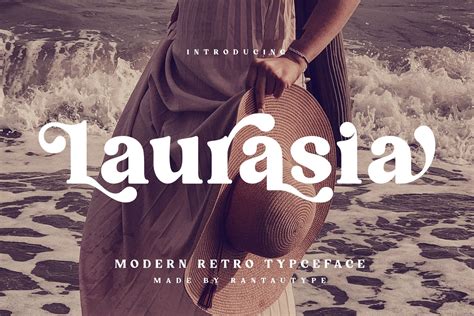
Laurasia Font: Discover Its Unique Style
Hey guys! Today, we’re diving deep into the fascinating world of Laurasia Font . If you’re a designer, a typophile, or just someone who appreciates a really cool typeface, you’re going to want to stick around. We’re going to explore what makes Laurasia Font so special, where it came from, and how you can best use it to make your projects pop. Get ready to unlock the secrets of this amazing font!
The Genesis of Laurasia Font
Let’s start at the beginning, shall we? The Laurasia Font isn’t just another pretty typeface; it has a story. Named after a supercontinent that existed millions of years ago, Laurasia evokes a sense of ancient wisdom and robust structure. This connection to a prehistoric landmass gives the font a unique character – it feels both timeless and modern. When designers create fonts, they often draw inspiration from history, nature, or abstract concepts, and Laurasia Font is a prime example of this. The designers behind Laurasia aimed to capture the essence of geological time, the slow, powerful shaping of continents, and translate that into a visual language. Think about the ruggedness of ancient landscapes, the strength in natural formations, and the beauty of enduring structures. That’s the vibe they were going for. It’s not a font that shouts for attention, but rather one that commands respect through its inherent quality and thoughtful design. The careful balance between sharp serifs and smooth curves suggests a deliberate hand, one that understands the nuances of legibility and aesthetic appeal. It’s the kind of font that whispers sophistication, making it ideal for projects that aim for a more profound and lasting impression.
Key Features That Make Laurasia Stand Out
So, what exactly sets Laurasia Font apart from the crowd? It’s all in the details, guys! One of the most striking features is its unique serif style. They’re not your typical sharp, pointy serifs; they have a slightly rounded, almost calligraphic feel. This gives the font a warm and inviting, yet still professional, appearance. Additionally, the letterforms themselves have a distinctive structure. Some characters might feature unexpected ligatures or subtle variations in stroke width that add a touch of personality without compromising readability. This attention to detail ensures that Laurasia Font doesn’t just look good; it feels good to read. The ascenders and descenders (the parts of letters that go above or below the main body) are well-proportioned, contributing to a harmonious rhythm when text is set in paragraphs. The x-height – the height of lowercase letters like ‘x’ – is also carefully considered, striking a balance that enhances legibility across different sizes. Whether you’re using it for headlines, body text, or even small captions, Laurasia Font maintains its integrity and charm. Another aspect worth noting is the range of weights and styles available. Often, a font family will include light, regular, bold, and perhaps italic versions. Laurasia Font, depending on the specific iteration, might offer even more, allowing for versatile typographic applications. This flexibility is a huge plus for designers who need to create a cohesive visual hierarchy within a single project. The kerning – the space between individual letter pairs – is also meticulously crafted, preventing awkward gaps or overlaps that can disrupt the flow of reading. It’s these subtle, often overlooked, elements that elevate a font from merely functional to truly exceptional.
Applications of Laurasia Font: Where to Use It
Now for the fun part: how can you actually use Laurasia Font ? The versatility of this font is one of its biggest strengths, making it suitable for a wide array of applications. For starters, it’s fantastic for branding and logo design. Its unique character makes a memorable impression, helping businesses establish a distinct identity. Imagine a high-end boutique, a bespoke furniture maker, or a craft brewery using Laurasia Font for their logo – it immediately conveys a sense of quality and thoughtfulness.
Branding and Logo Design
When it comes to branding and logo design , Laurasia Font truly shines. Why? Because it strikes that perfect balance between distinctiveness and professionalism. You want a logo font that’s instantly recognizable, something that sets you apart from the competition, but you also need it to be legible and convey trust. Laurasia Font delivers on both fronts. Its slightly unconventional serifs and unique letterforms give it personality, making it memorable. Think of it as the font equivalent of a well-tailored suit with a subtle, stylish accessory – it’s put-together, but with a hint of flair. For brands that want to project an image of heritage, craftsmanship, or understated luxury, Laurasia is a go-to. It feels established, like it has a story to tell, which is incredibly powerful for brand storytelling. Whether it’s etched into metal, printed on a business card, or displayed on a website, Laurasia Font has the gravitas to make a brand statement. It avoids being overly trendy, which means your logo will stand the test of time, avoiding the need for frequent redesigns just because the font went out of fashion. It’s the kind of font that makes people pause and take notice, not because it’s loud, but because it possesses a quiet confidence and an undeniable elegance. Consider a craft artisanal food company – the font can communicate the care and quality put into their products. Or perhaps a luxury real estate agency – it speaks of exclusivity and enduring value. The possibilities are vast, and the impact is consistently impressive. The key is understanding the brand’s core values and seeing how Laurasia Font’s inherent characteristics can amplify those messages. It’s about more than just aesthetics; it’s about strategic typographic communication.
Editorial and Publishing
In the realm of editorial and publishing , Laurasia Font is a gem for both headlines and body text. Its excellent readability, even in smaller sizes, makes it a dream for book designers, magazine editors, and anyone working on long-form content. Use it for the main title of a novel to evoke a sense of classic storytelling, or for feature articles in a magazine to lend an air of authority and sophistication.
Web Design and UI/UX
For web design and UI/UX , Laurasia Font offers a sophisticated touch. It can be used for website headings, navigation menus, or even call-to-action buttons to create a more refined user experience. Its legibility on screens ensures that your message is always clear and engaging. Imagine a travel blog or a personal portfolio site – Laurasia Font can add that extra layer of polish that makes visitors want to explore further. The subtle details of the font can also contribute to a brand’s online personality, making the digital experience feel more human and less generic. When users interact with a website, the typography plays a crucial role in setting the tone and conveying information efficiently. Laurasia Font, with its blend of classic structure and contemporary appeal, can enhance this interaction significantly. It’s not just about looking good; it’s about ensuring that the user journey is intuitive and pleasant. For instance, using Laurasia for headings can guide the user’s eye through the content, while a slightly different weight or style for subheadings can create a clear visual hierarchy. This makes complex information easier to digest and navigate. In e-commerce, clear and elegant typography can build trust and encourage conversions. A well-chosen font like Laurasia can make product descriptions more appealing and checkout processes feel more secure. Its readability across various devices and screen sizes is paramount, and Laurasia generally performs well in this regard, adapting gracefully to different resolutions. Furthermore, its unique character can help a brand stand out in a crowded digital space, making a lasting impression on visitors long after they’ve left the site. It’s a tool that designers can leverage to create not just functional websites, but truly memorable digital experiences. The aesthetic qualities of Laurasia Font can also evoke specific emotions or associations, aligning the user’s perception with the brand’s intended message. Whether aiming for a modern, minimalist feel or a more traditional, elegant aesthetic, Laurasia Font provides the flexibility to achieve these goals effectively, enhancing the overall user interface and user experience in a meaningful way.
Packaging and Print Design
Packaging and print design also benefit greatly from Laurasia Font . Think about wine labels, craft beer packaging, or even high-end stationery. Its elegant and sturdy nature makes it perfect for conveying a sense of quality and craftsmanship. It’s a font that feels substantial, making your product or printed material stand out on the shelf or in the mail.
Tips for Using Laurasia Font Effectively
To truly harness the power of Laurasia Font , here are a few pro tips, guys:
• Pairing is Key: While Laurasia Font is beautiful on its own, pairing it with a complementary sans-serif font can create dynamic contrast. Look for a sans-serif that has clean lines and perhaps a similar x-height to maintain balance.
• Consider the Weight: If Laurasia Font comes in multiple weights, use them strategically. A bold weight for headlines can grab attention, while a lighter weight might be suitable for subheadings or captions.
• Don’t Overuse: Like any distinctive font, too much of a good thing can be overwhelming. Use Laurasia Font where it will have the most impact, and let other elements breathe.
• Test Readability: Always test how your chosen text looks in Laurasia Font at different sizes and on different backgrounds to ensure optimal readability.
Conclusion: Embrace the Elegance of Laurasia Font
In conclusion, Laurasia Font is more than just a collection of letters; it’s a design tool with a rich backstory and incredible potential. Its unique blend of classic structure and subtle modern flair makes it suitable for a wide range of projects, from sophisticated branding to engaging editorial content. So, the next time you’re looking for a font that offers both character and class, give Laurasia Font a try. You might just find your new favorite typeface! Keep experimenting, keep creating, and let Laurasia Font help your designs stand out. Cheers!